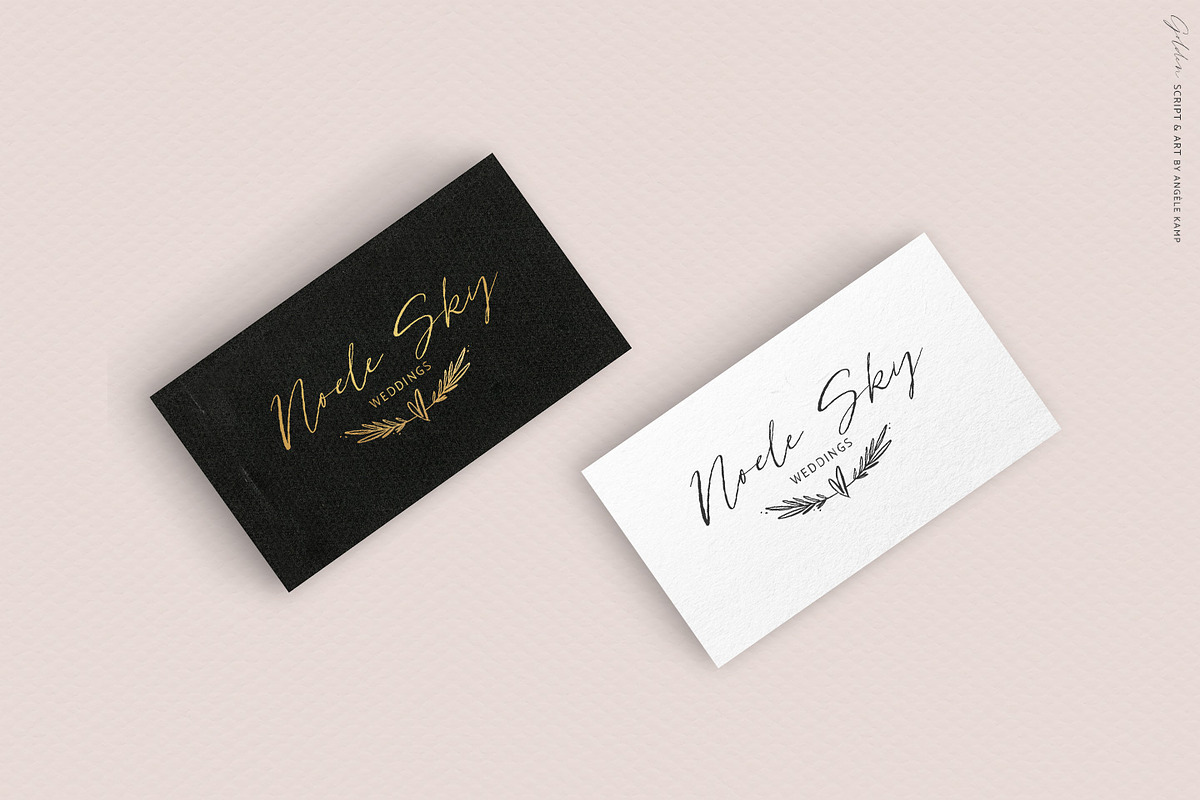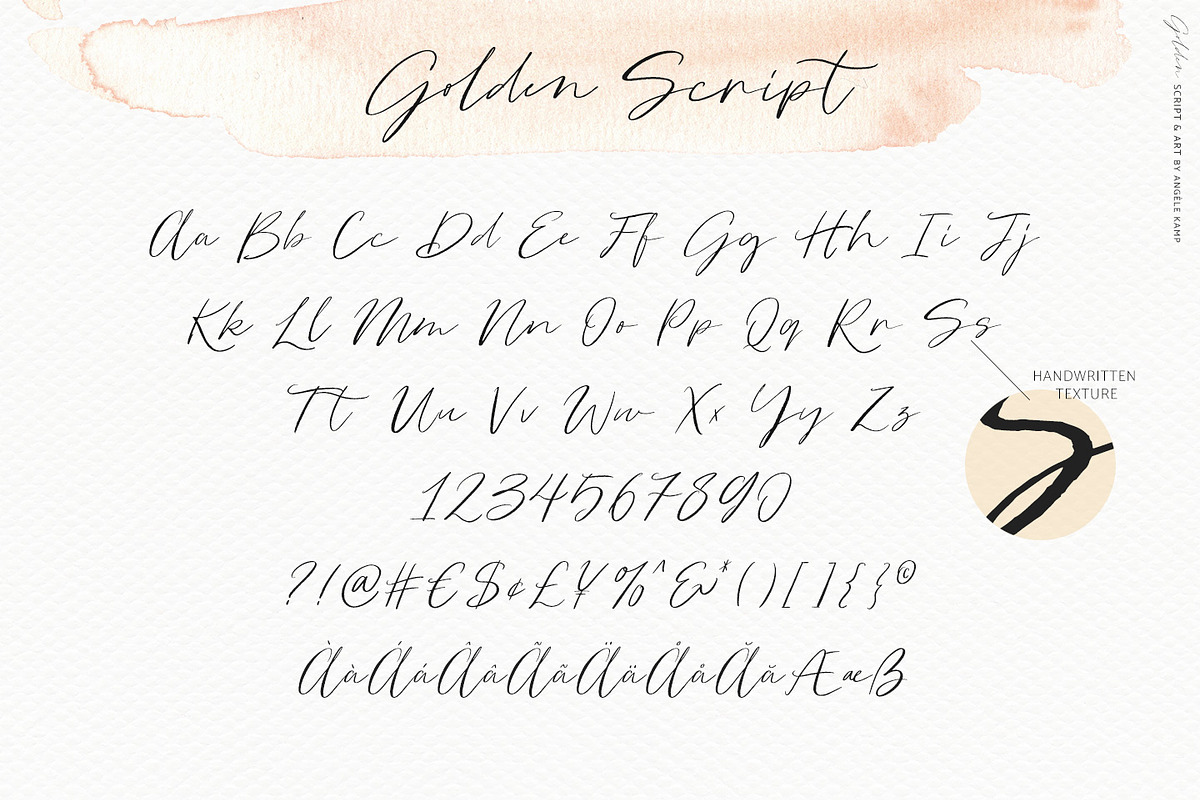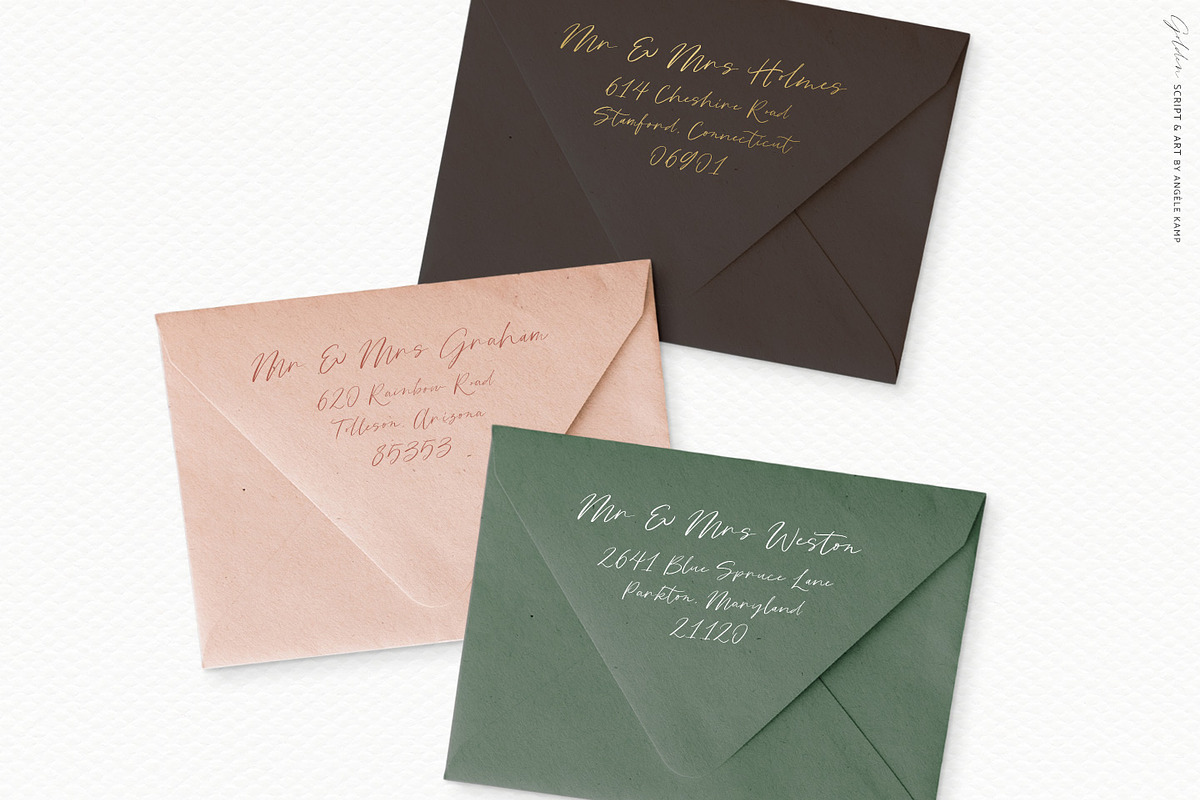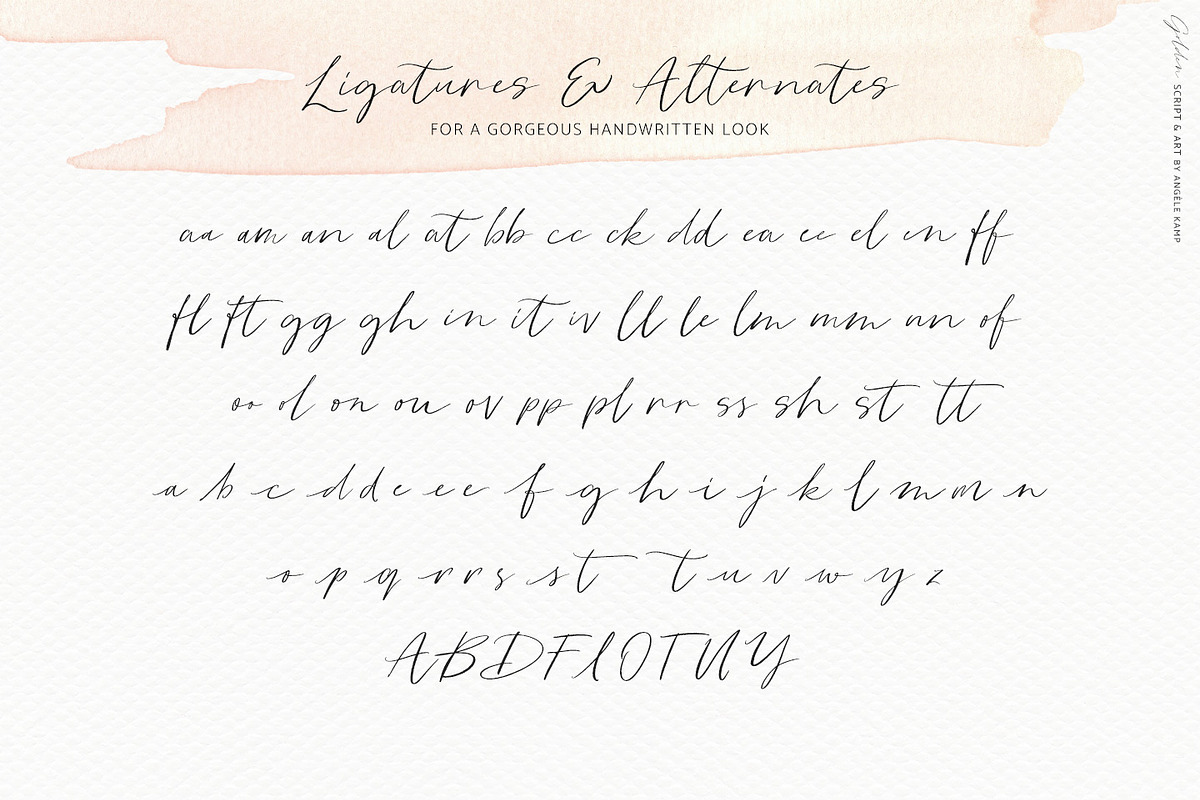
Golden, a romantic script & art
Golden is a stunning collection of a romantic script & botanical art. Use this collection to create the most gorgeous wedding designs, mood boards, invites, wall art & branding designs.